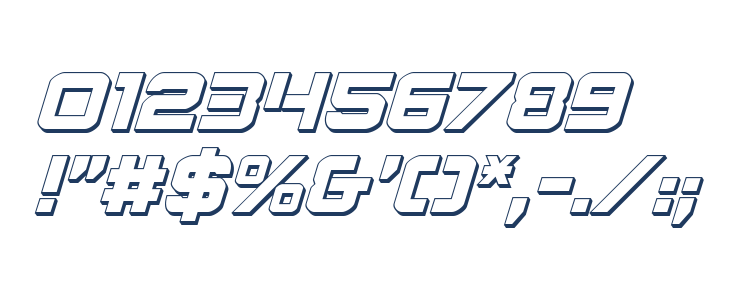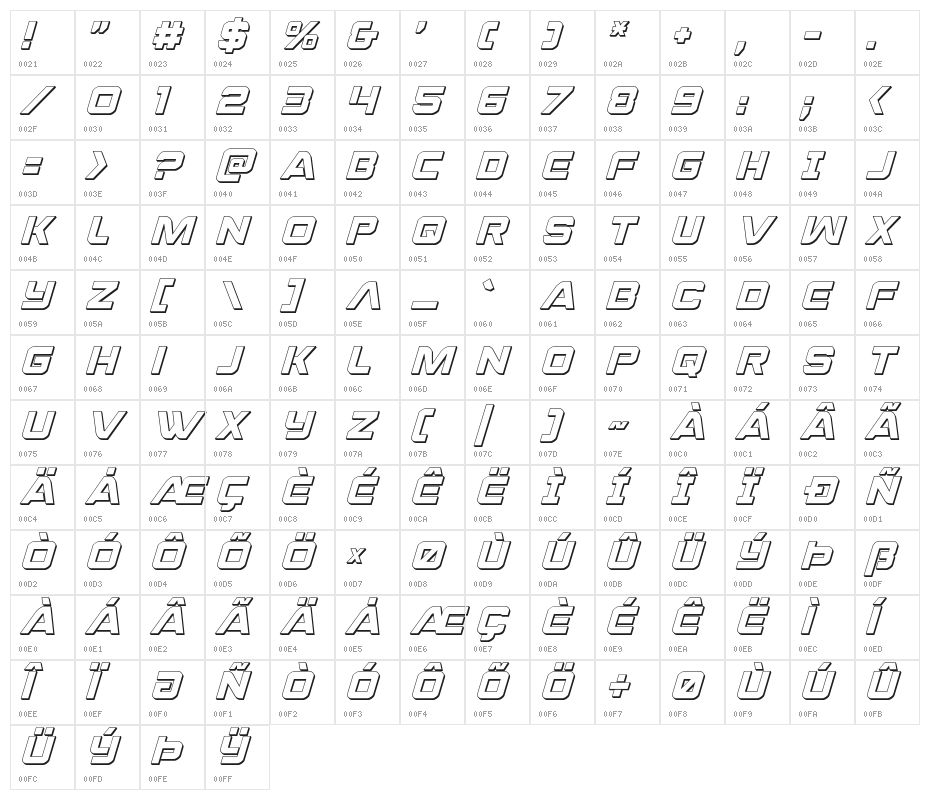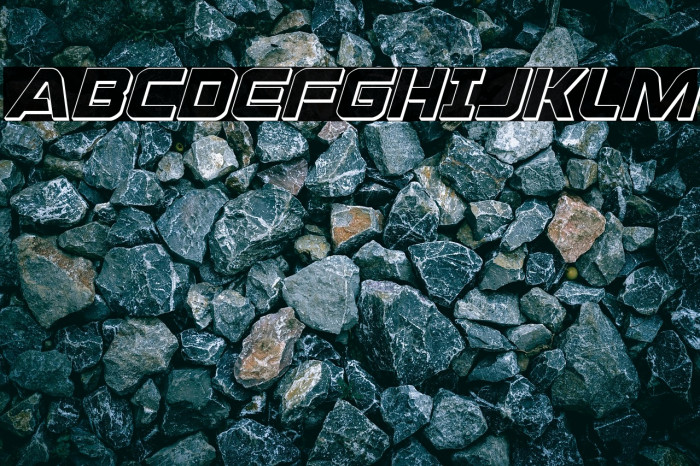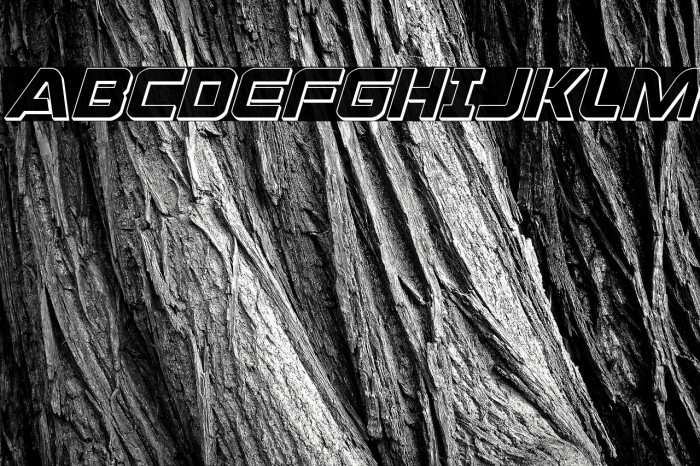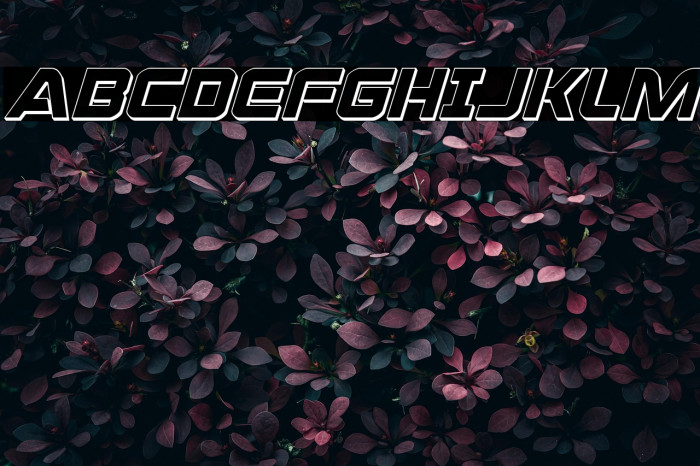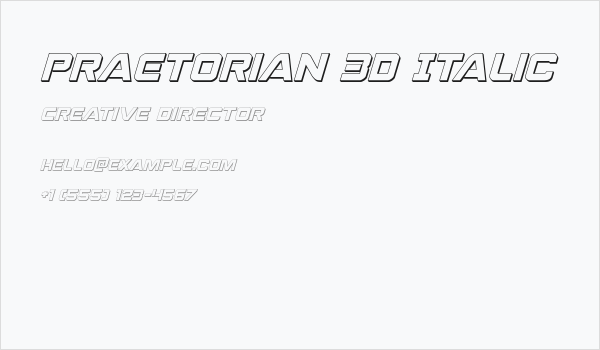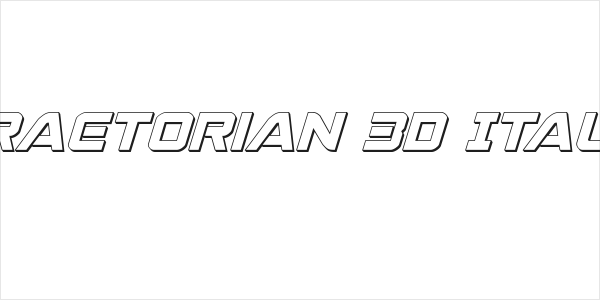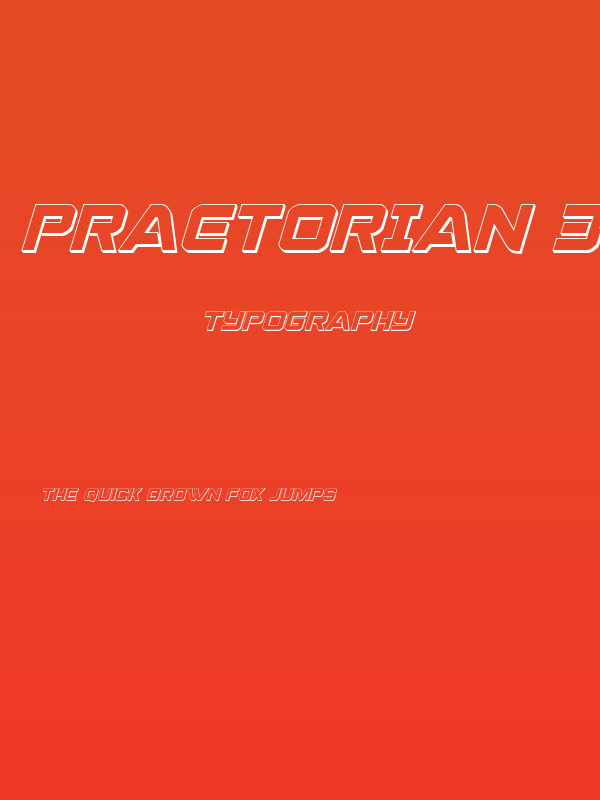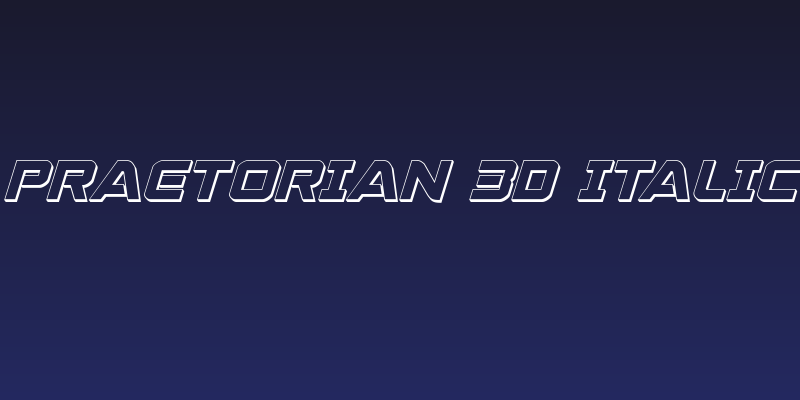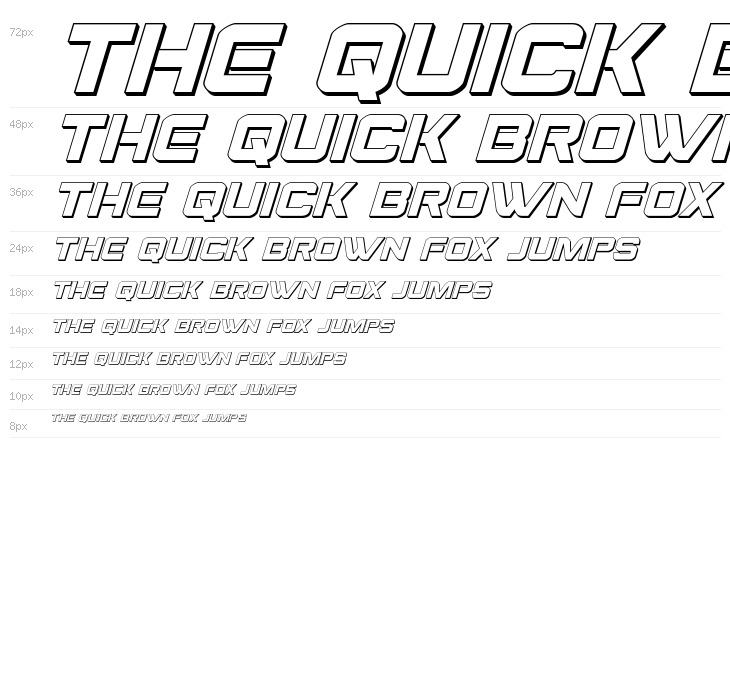
Praetorian 3D Italic Font
Praetorian 3D Italic Description
This font features a bold, three-dimensional design with an italic slant, giving it a dynamic and futuristic appearance. The characters are outlined, creating a sense of depth and movement. The uppercase and lowercase letters maintain a consistent style, with sharp angles and clean lines. The numerals and special characters follow the same design principles, ensuring uniformity across all glyphs. This font is ideal for projects that require a modern and impactful look, such as technology branding or sci-fi themed designs.
| Proposed Projects | Ideal for technology branding, sci-fi themed designs, and modern advertising. |